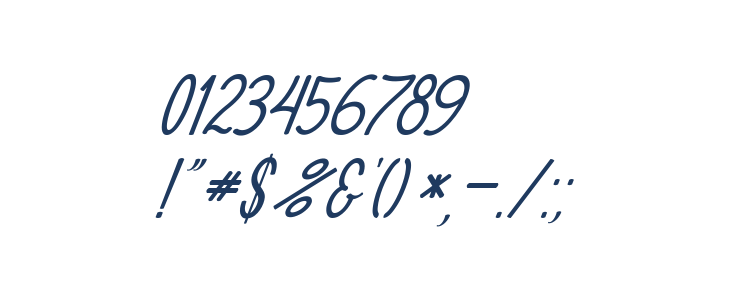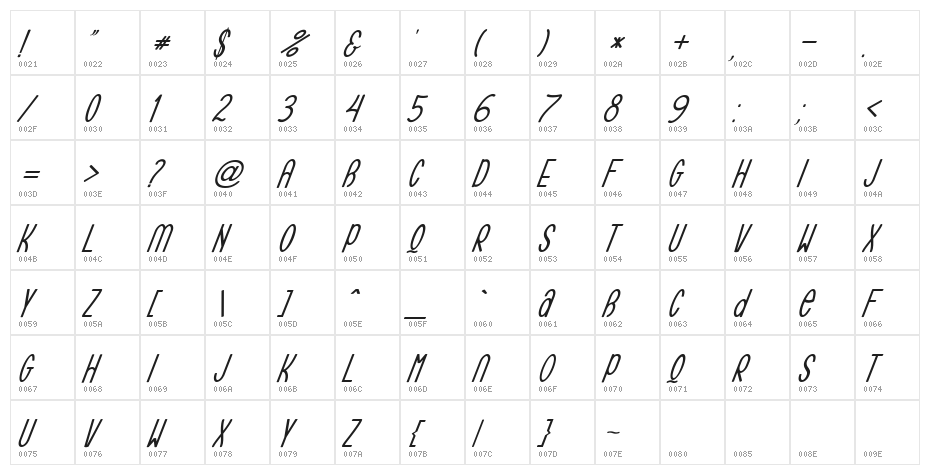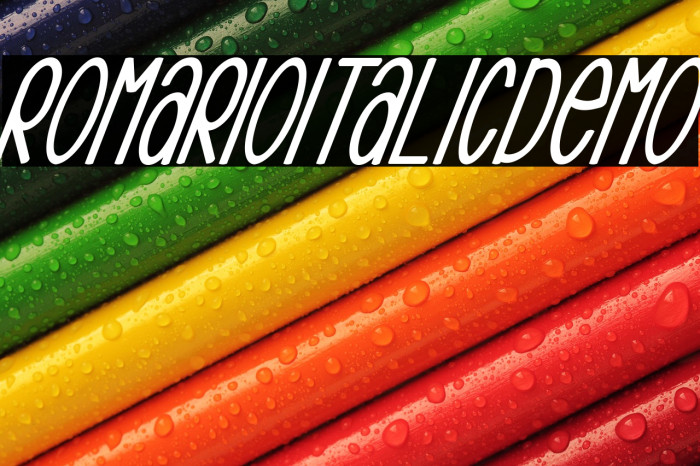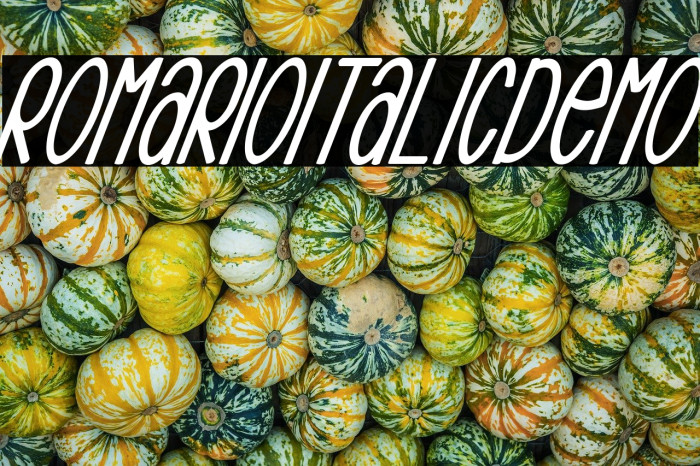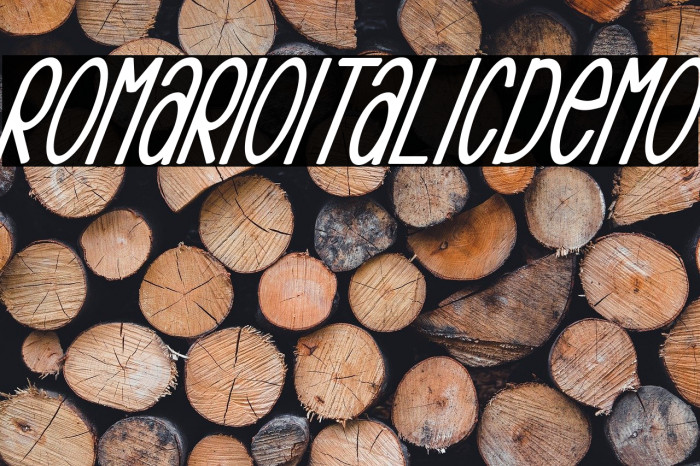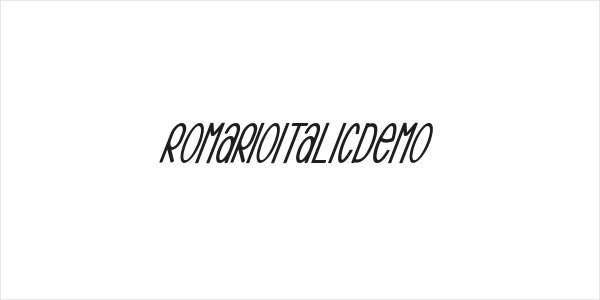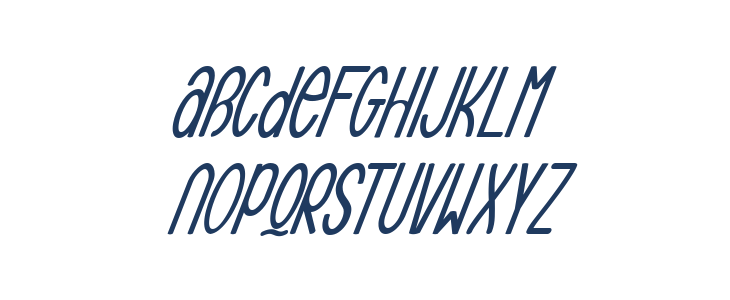
RomarioItalicDemo Font
RomarioItalicDemo Description
This font features a sleek, italicized design with elongated, narrow characters that convey a sense of motion and elegance. The uppercase and lowercase letters maintain a consistent slant, enhancing the dynamic appearance. The numerals are similarly styled, ensuring uniformity across the character set. Special characters are included, matching the overall aesthetic. The font's smooth curves and sharp edges create a modern, stylish look suitable for various creative applications.